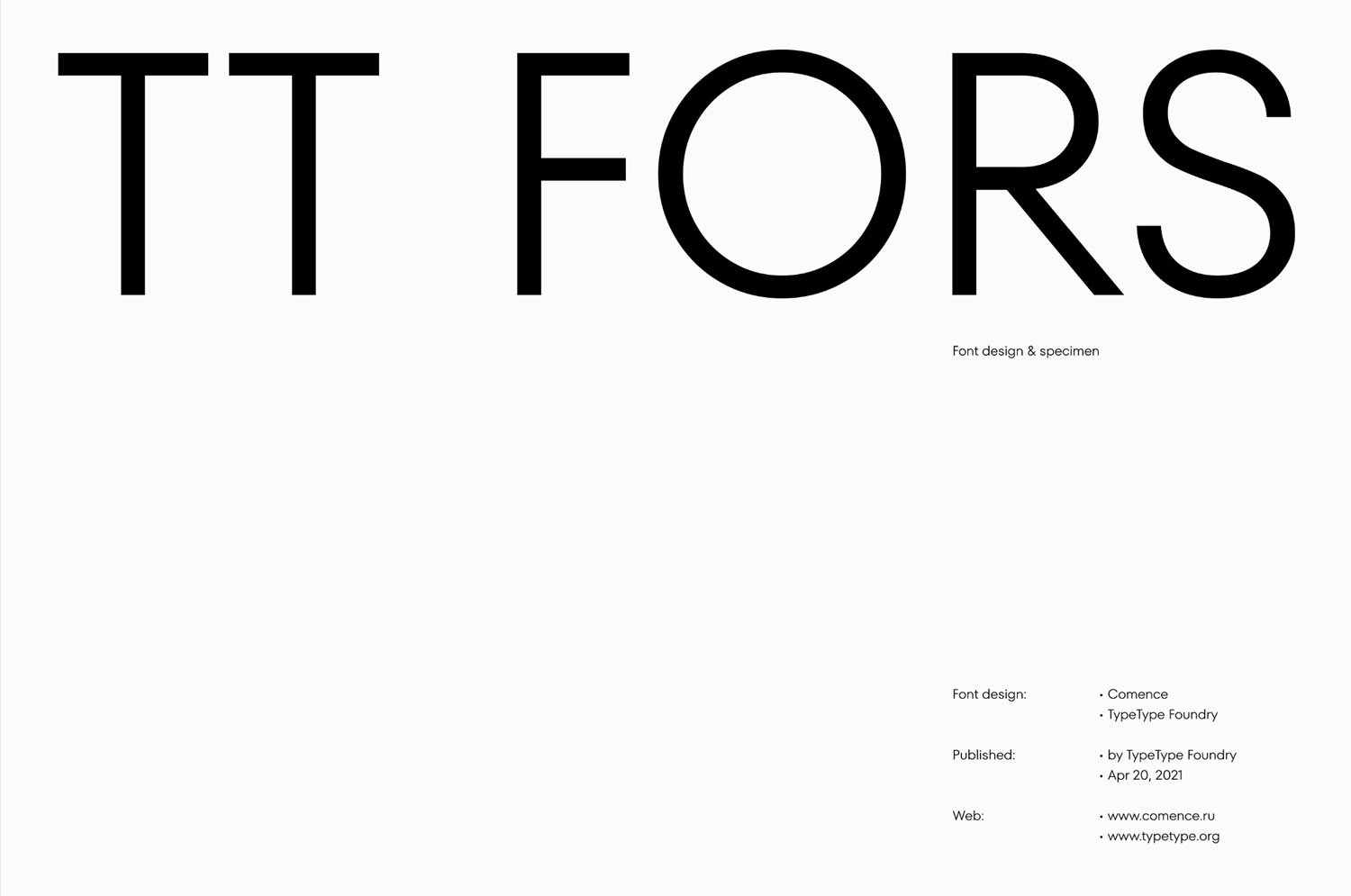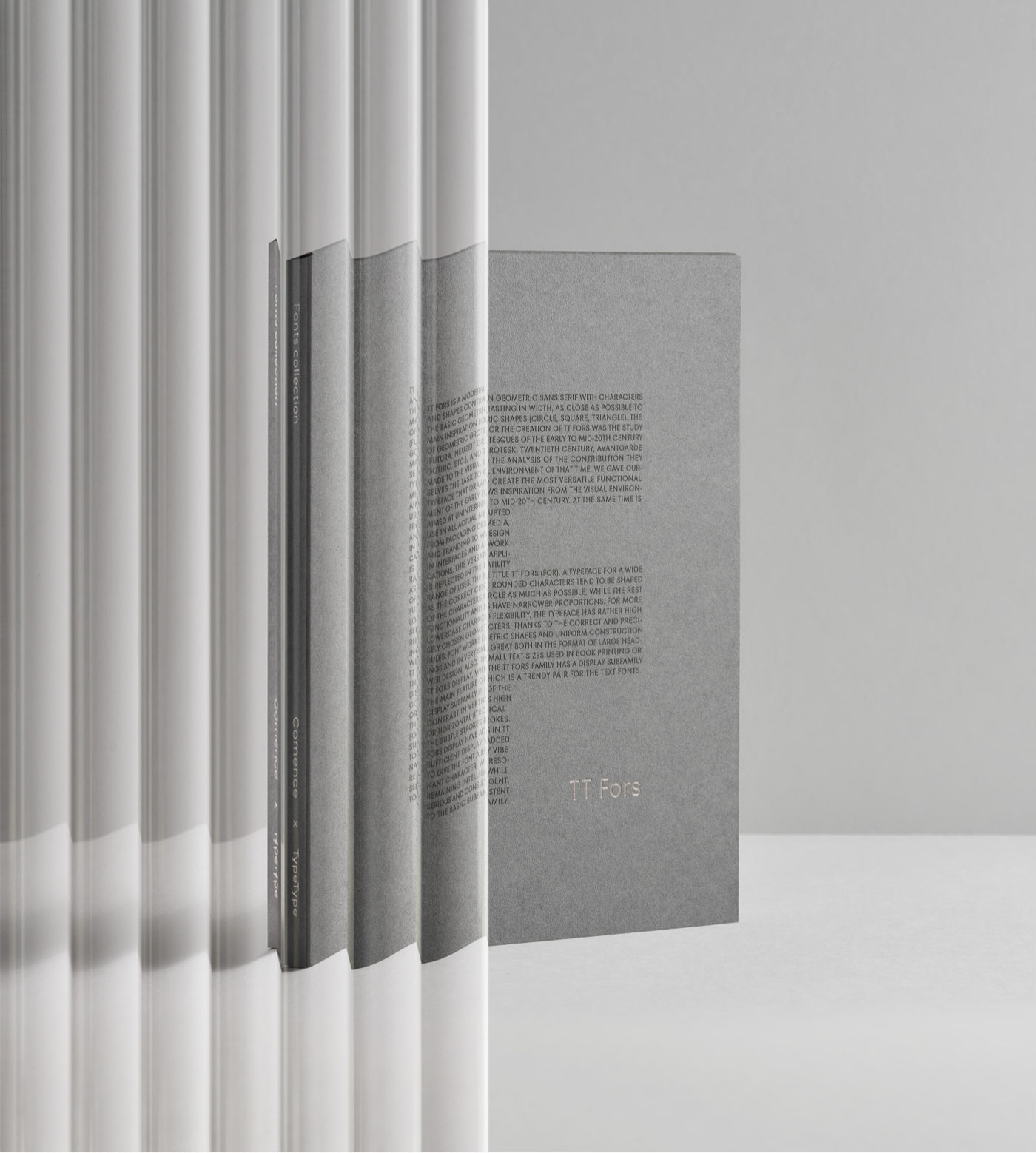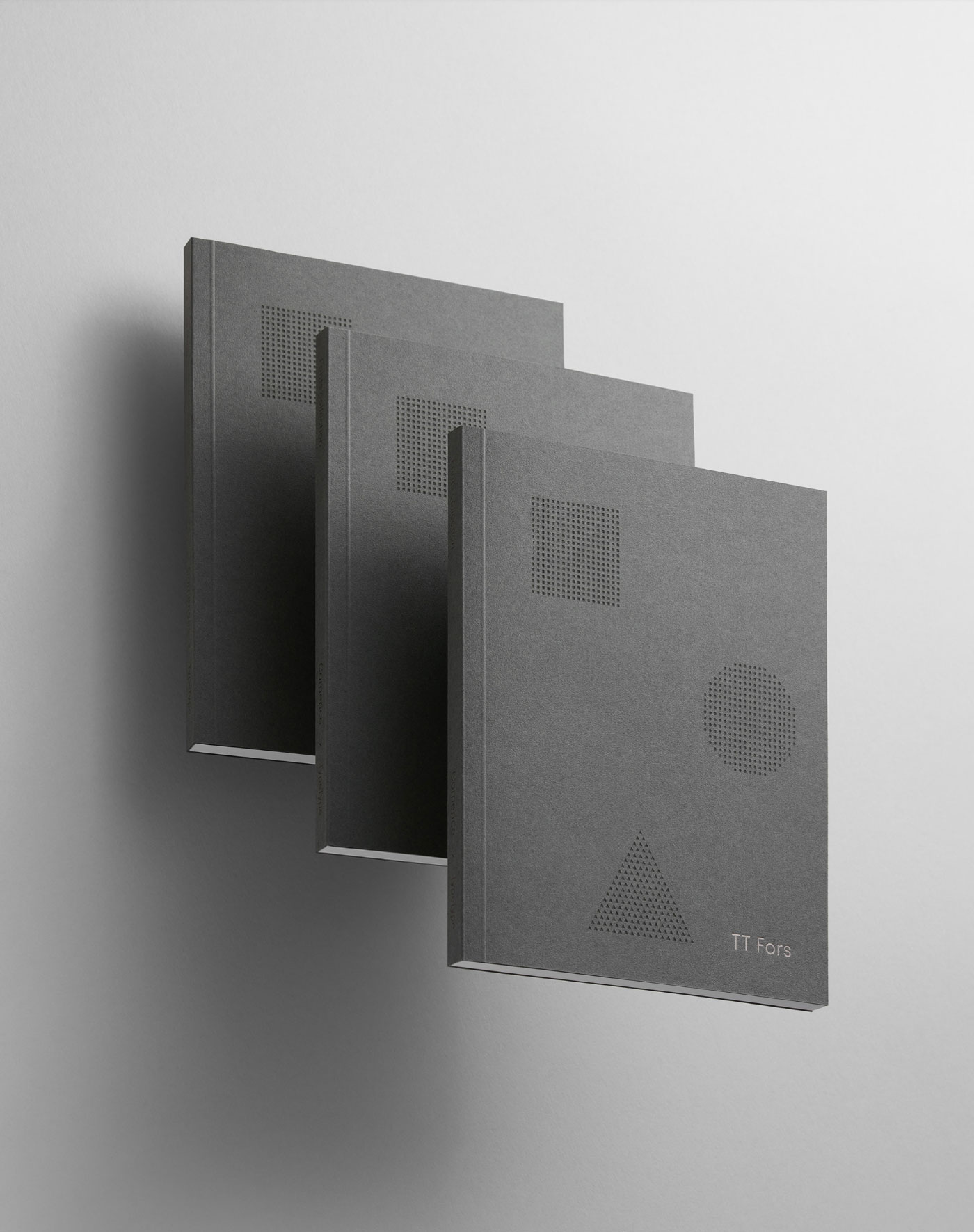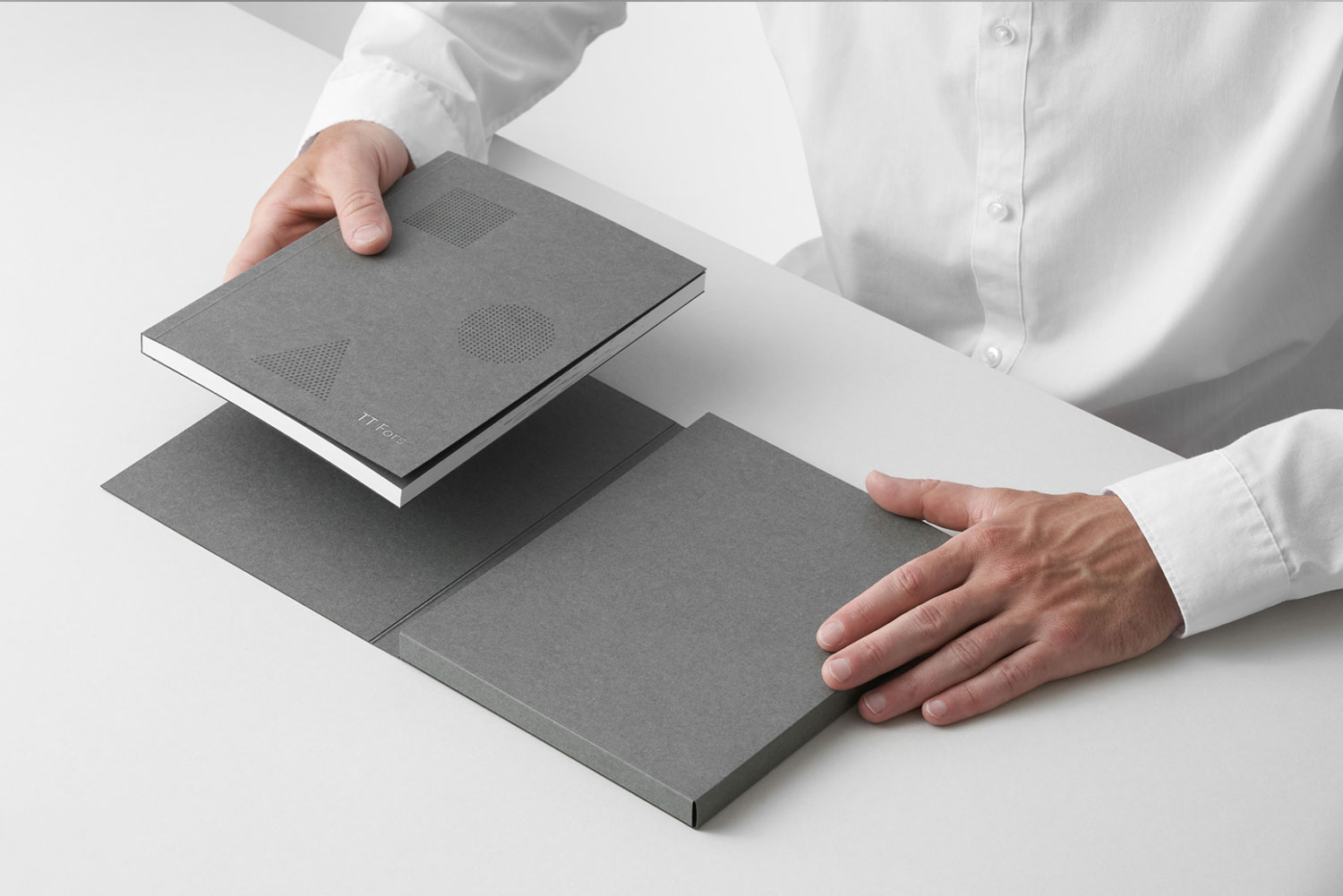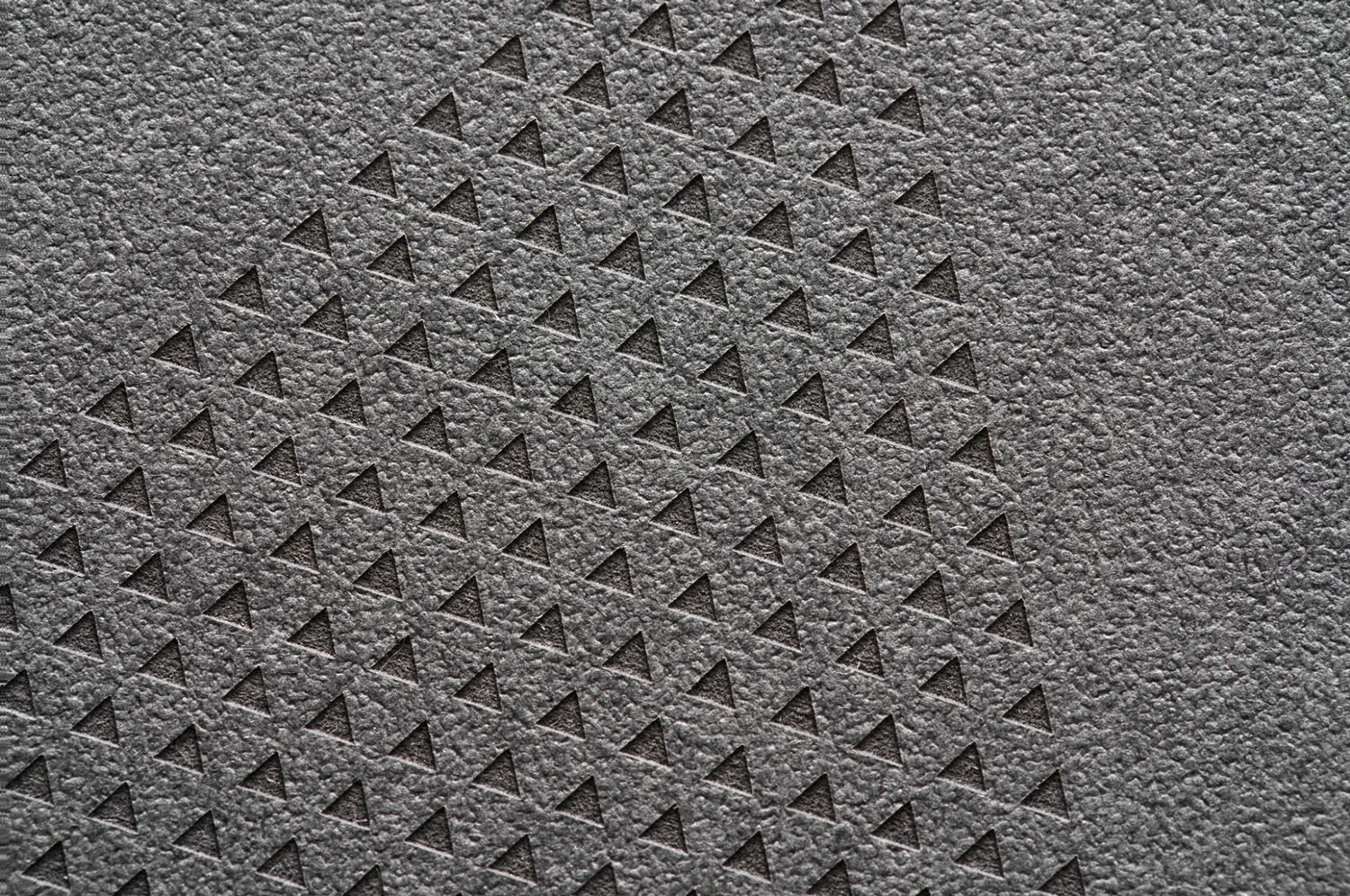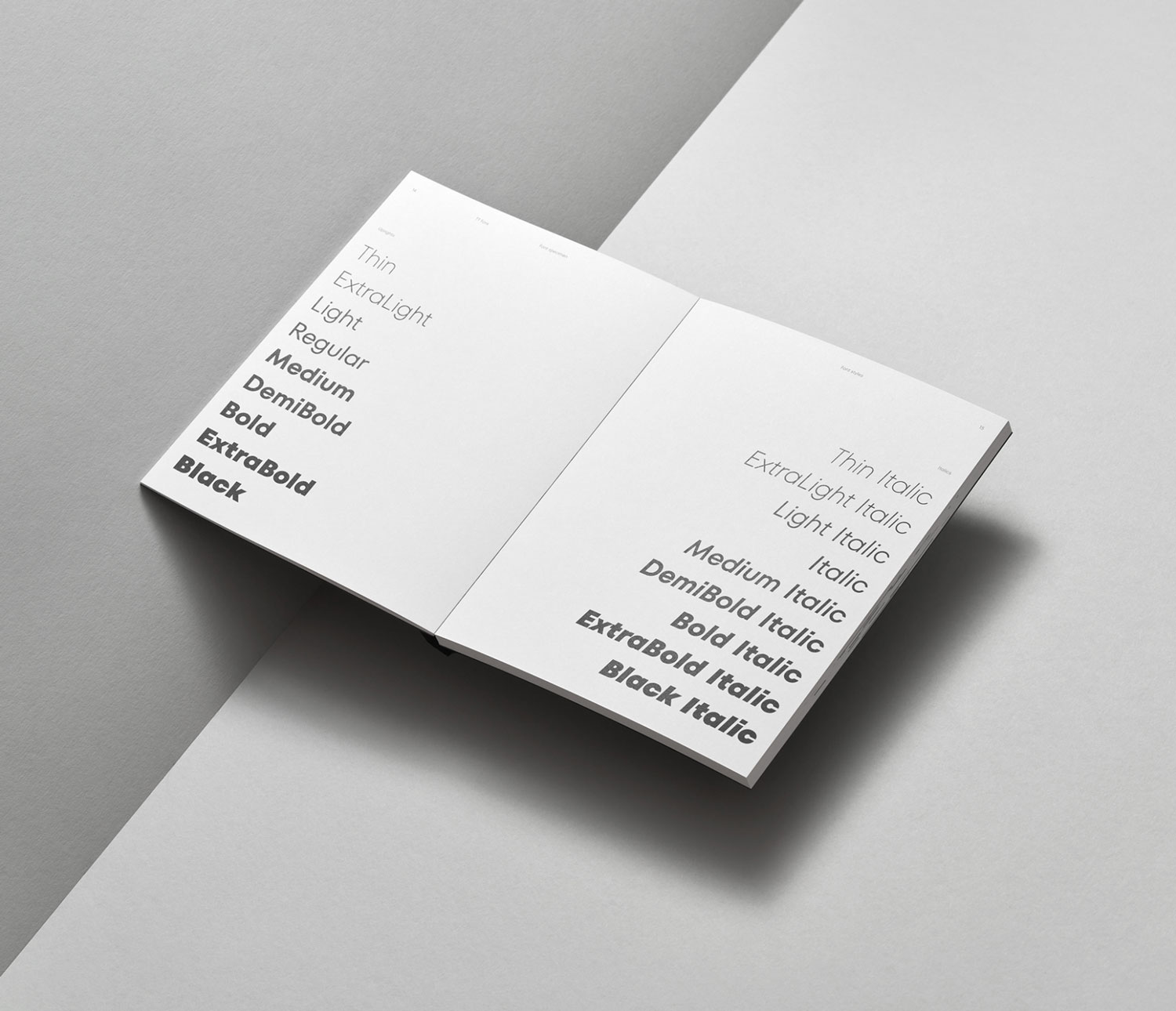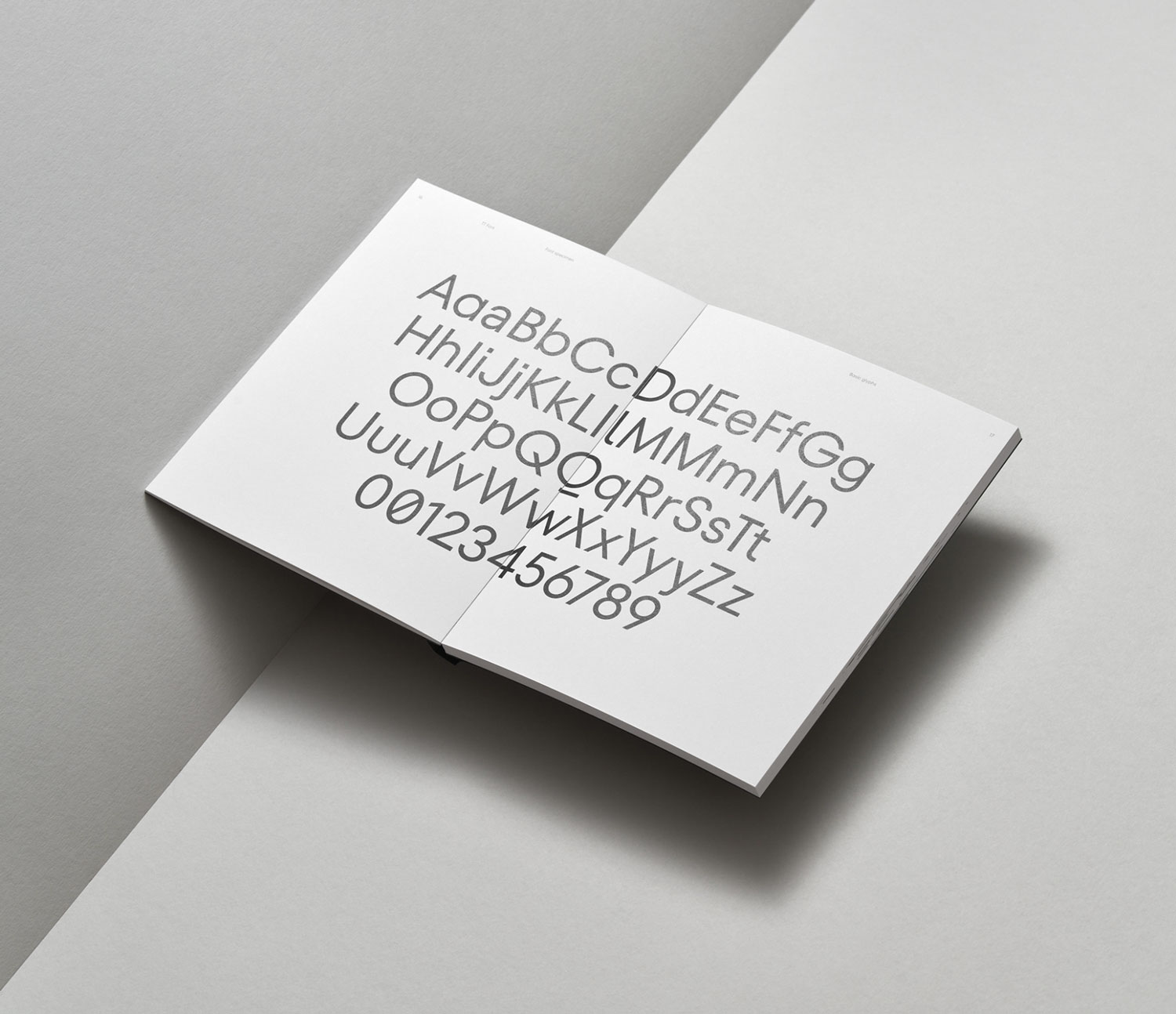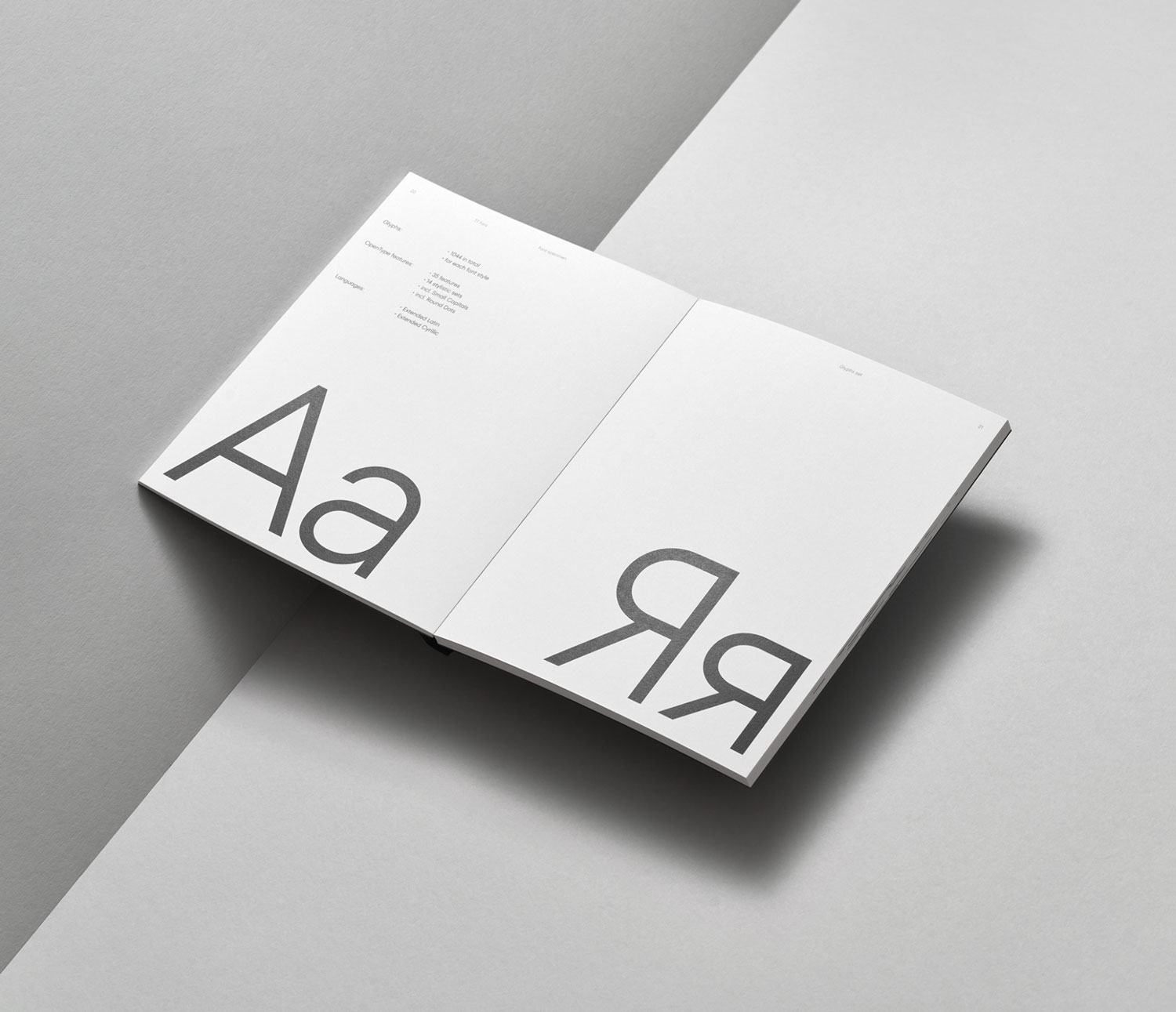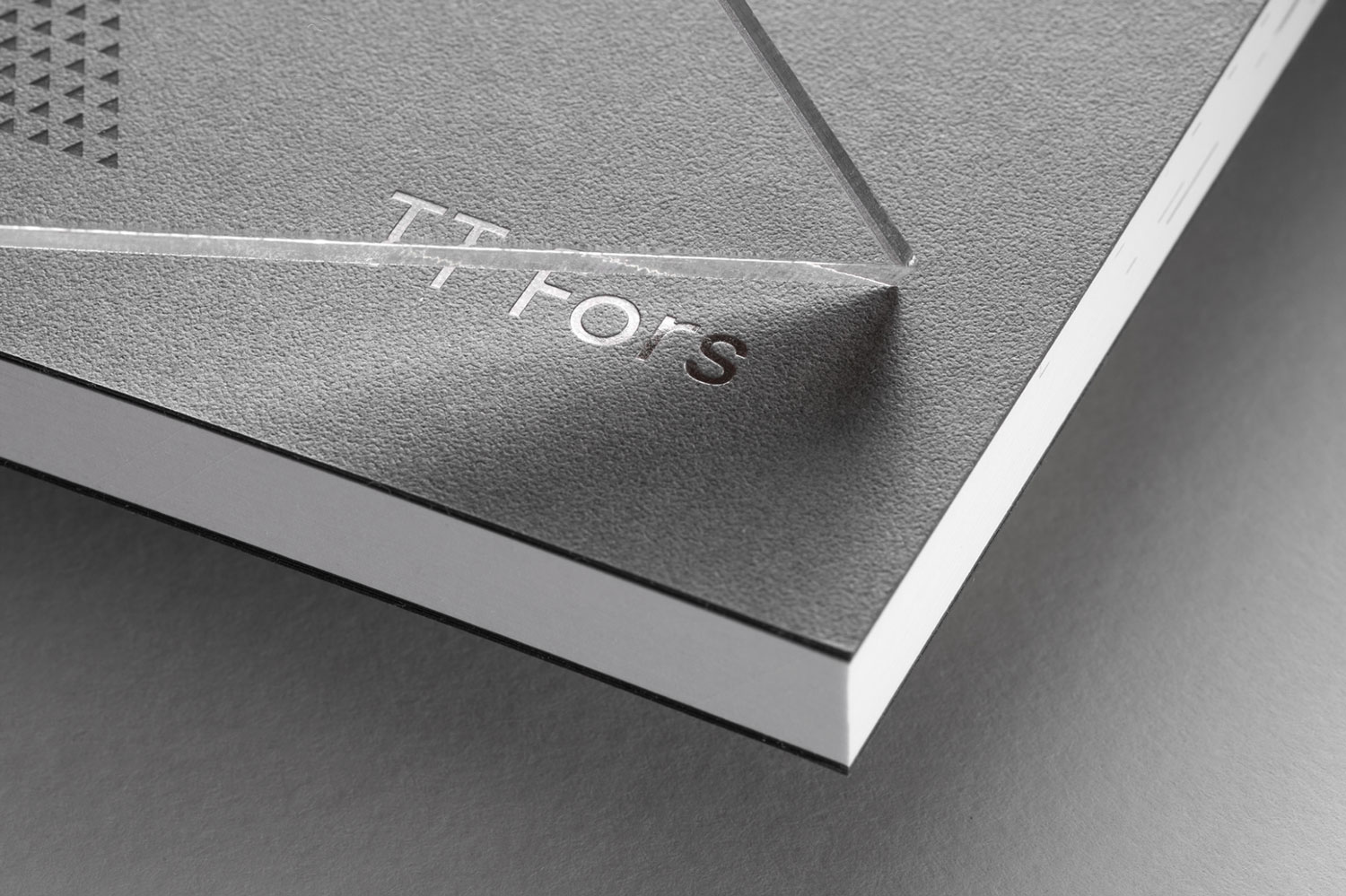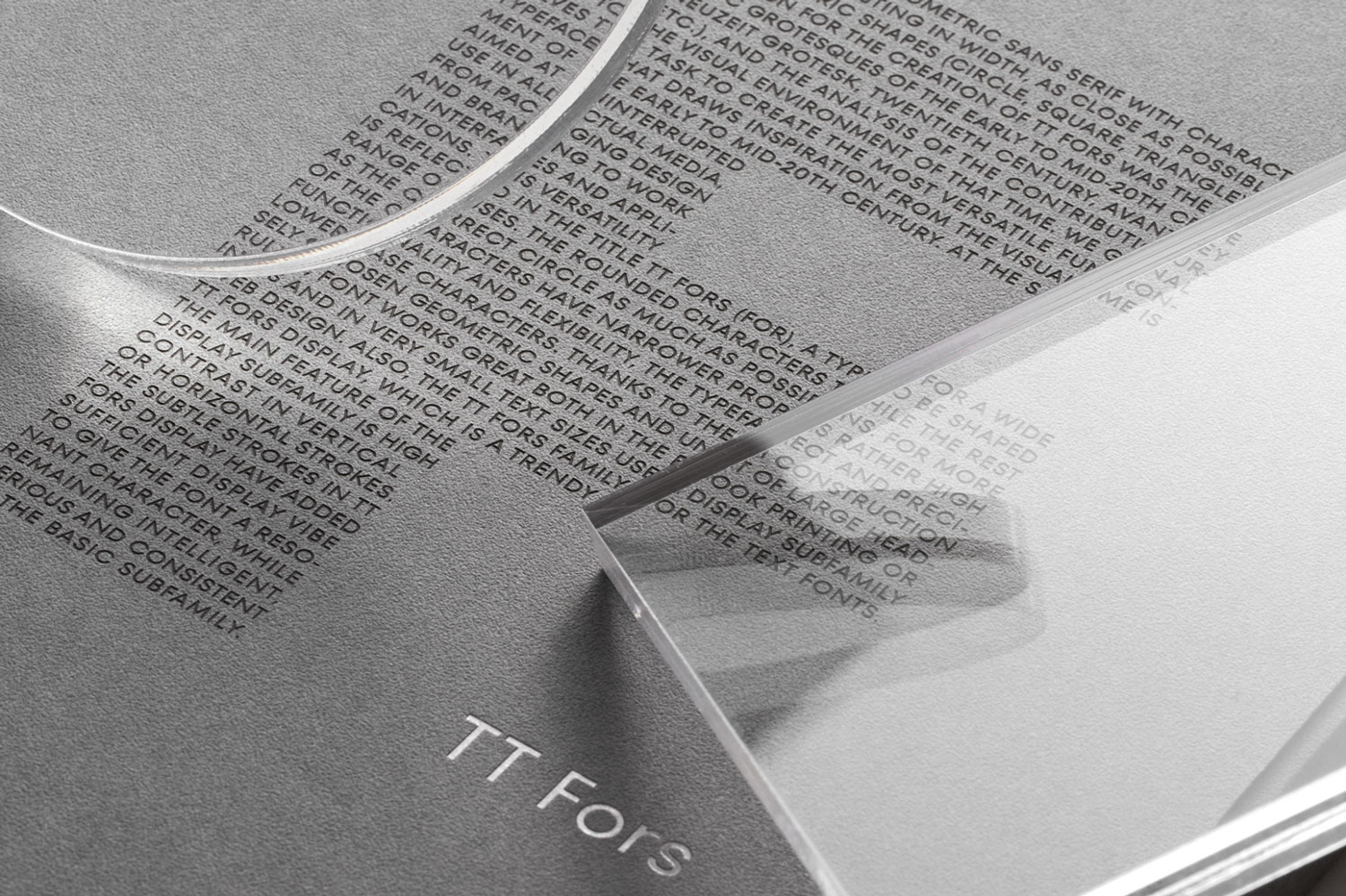
TT Fors font is a modern geometric sans serif font, jointly created by Comence and TypeType Foundry. The main inspiration was the study of geometric grotesques of the early to mid-20th century (Futura, Neuzeit Grotesk, Avantgarde Gothic, Twentieth, Century, etc.). Font design is based on standard geometric shapes (circle, rectangle, triangle) with a contrast in letters width.
Font /u2014 In total, TT Fors family consists of 32 fonts: 9 weights and 9 italic styles in the Basic subfamily, 6 weights and 6 italic styles in the Display subfamily, and 2 variable fonts for both subfamilies. With a more than 1000 glyphs per style, TT Fors covers 180+ world languages including most of Cyrillic.
Specimen /u2014 Graphite tactile paper, silver foil, and laser engraving forms are bound together to reflect the initial idea of TT Fors font: basic geometric shapes (circle, square, triangle) for specimen cover, and font description fitted in the shape of capital letter F (first letter of font name) for slipcase cover.
Print production /u2014 For specimen book we used lay flat cold glue binding for having printed graphic across a double page spread with zero gutter. The Kiss Anthrazit (Lake Paper) with nutshell texture was chosen for covers. It works great both with laser engraving and hot foil stamping. Specimen is printed in a limited edition.